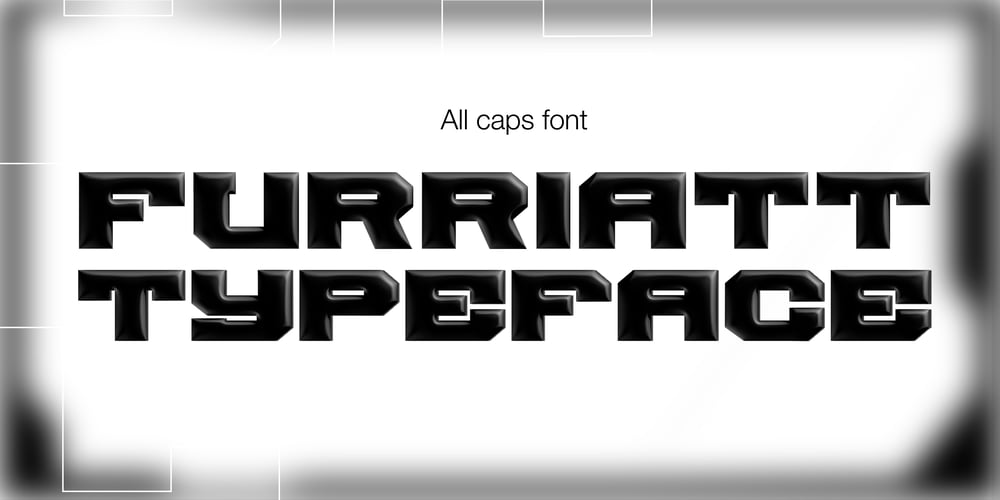
Furriatt Font Family was designed by Przemysław Hoffer and published by DVType. Furriatt contains 1 styles and family package options. Furriatt is a heavy weight bold all caps display typeface. It’s perfect for posters, logos, merch, covers and all stuff you want to print or display in larger format. Font also contain alternative characters set, you could match it with standard glyph to get the best rhythm of letters.